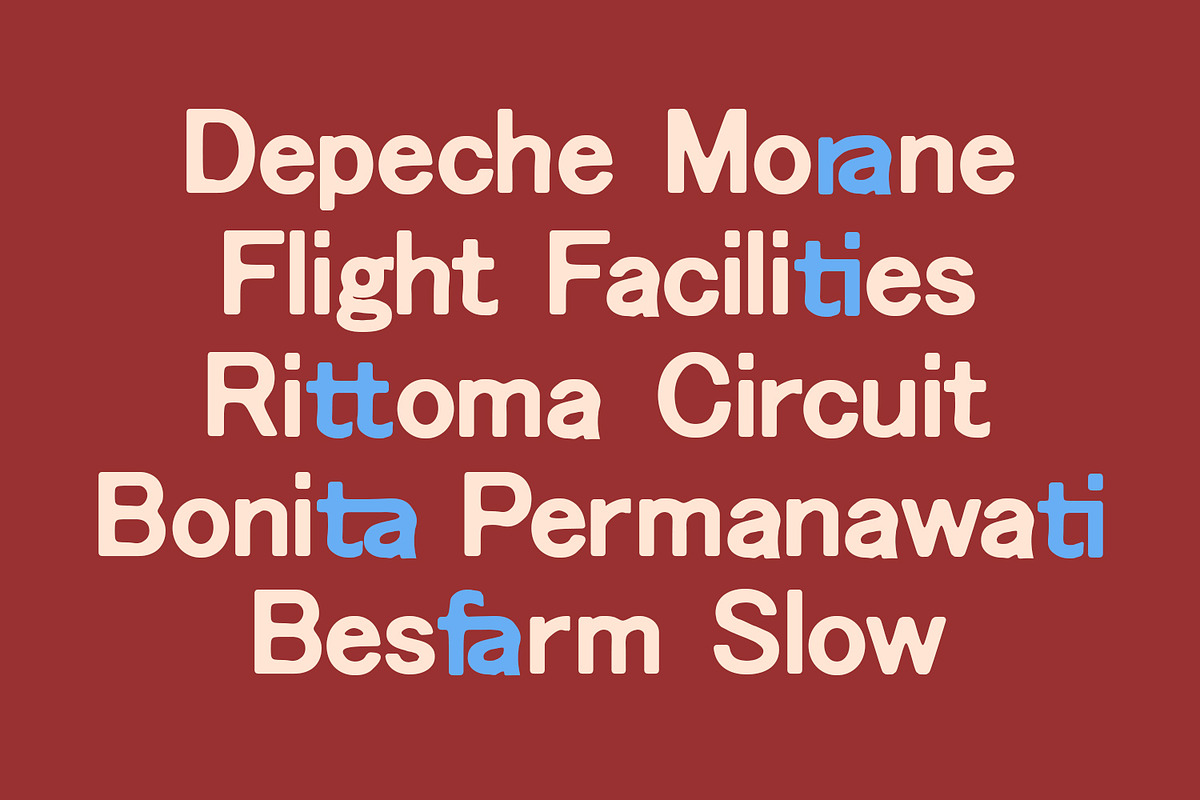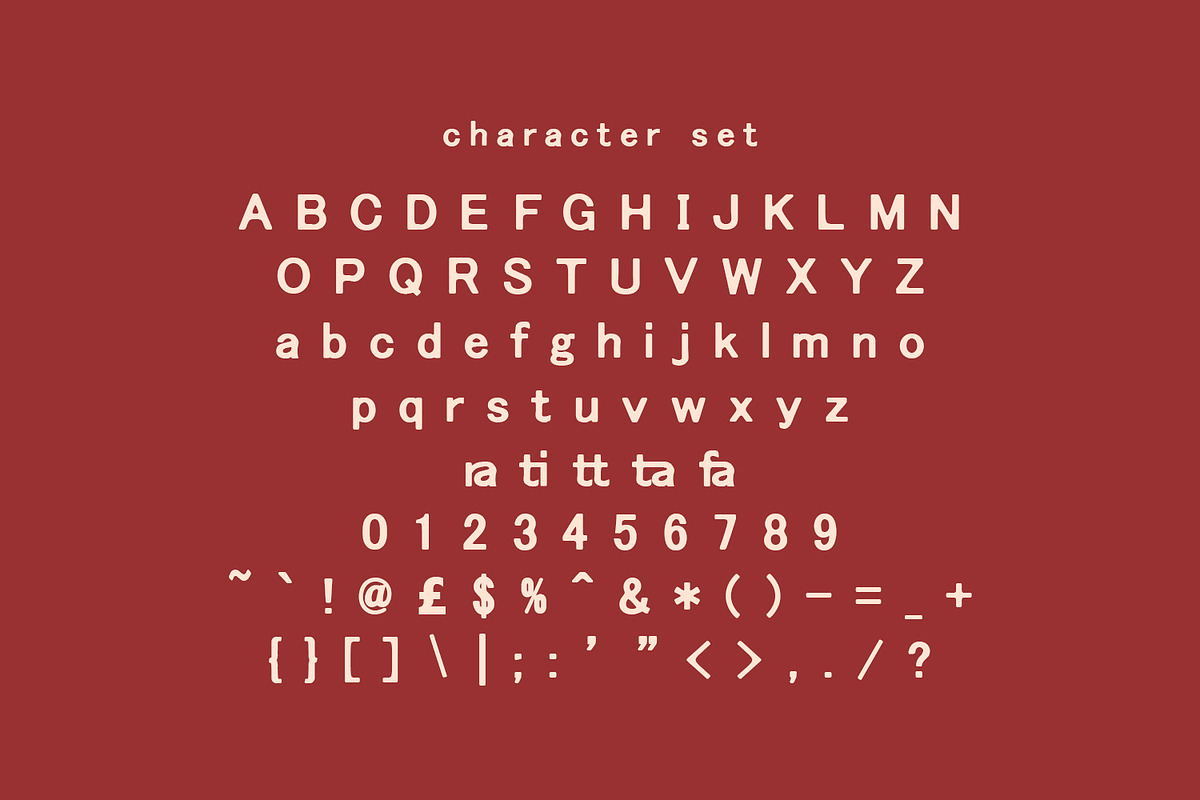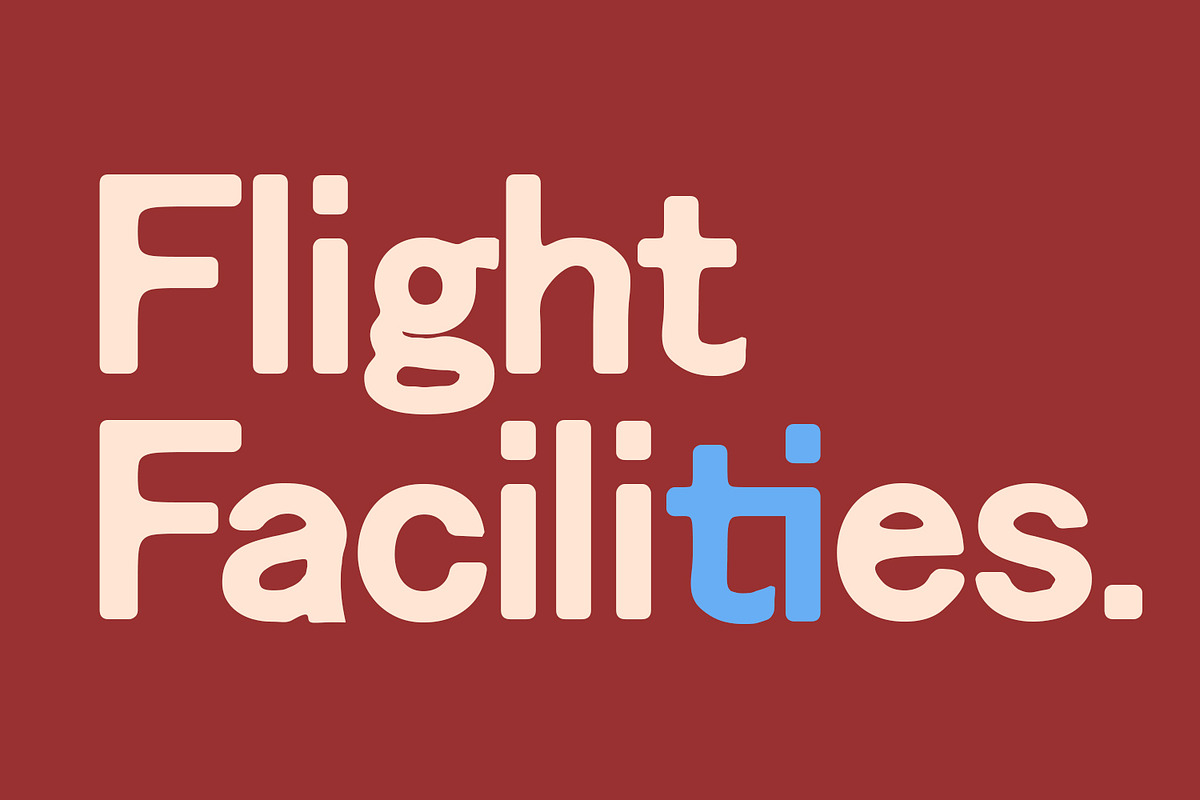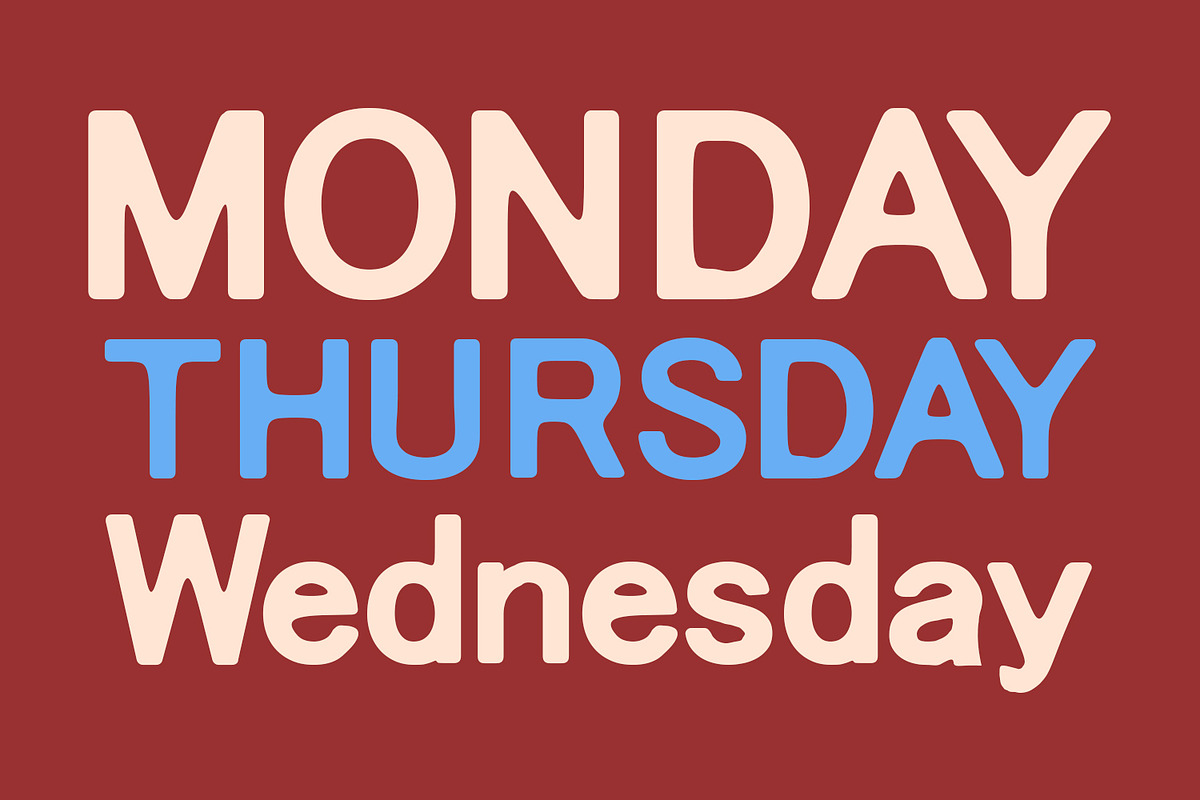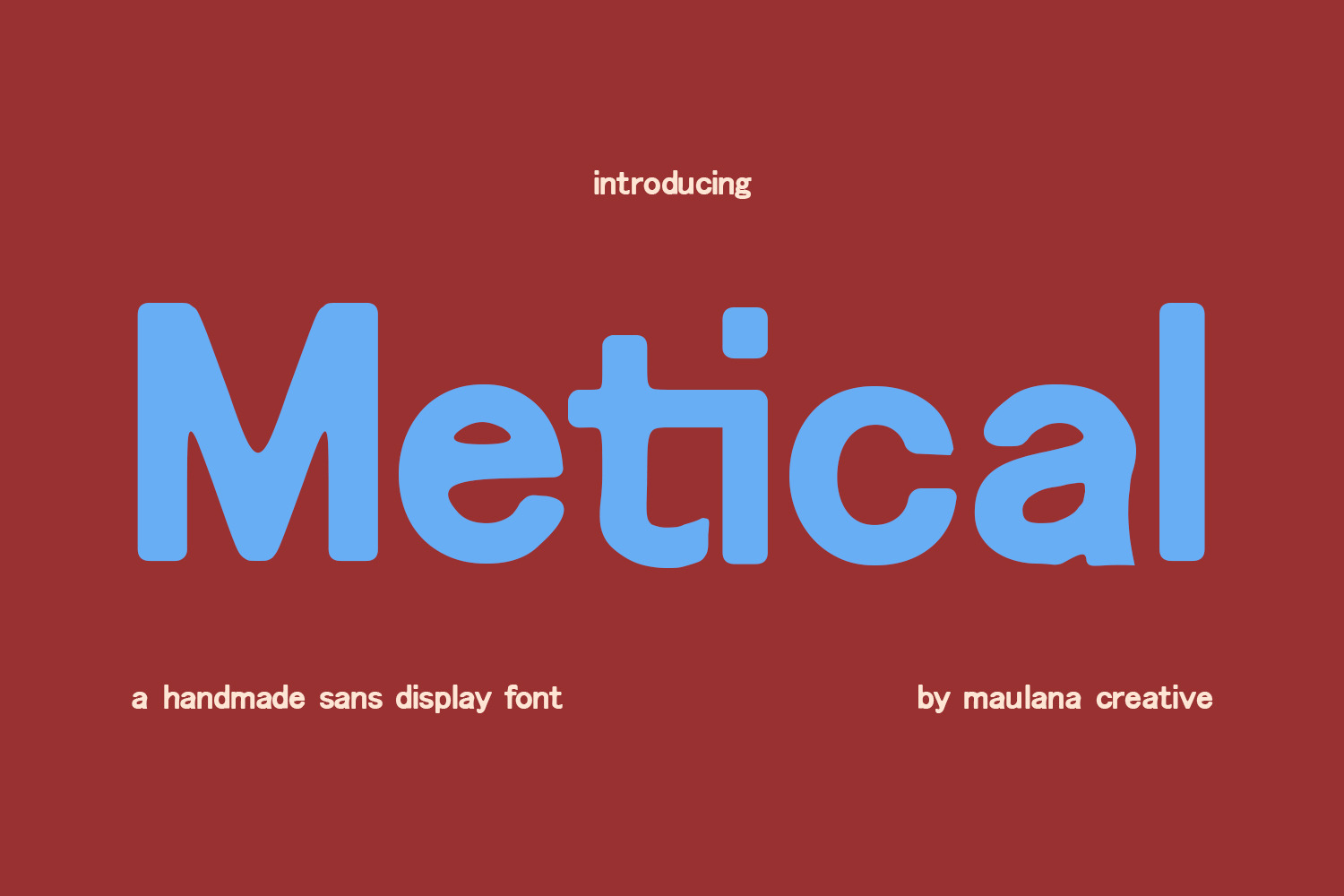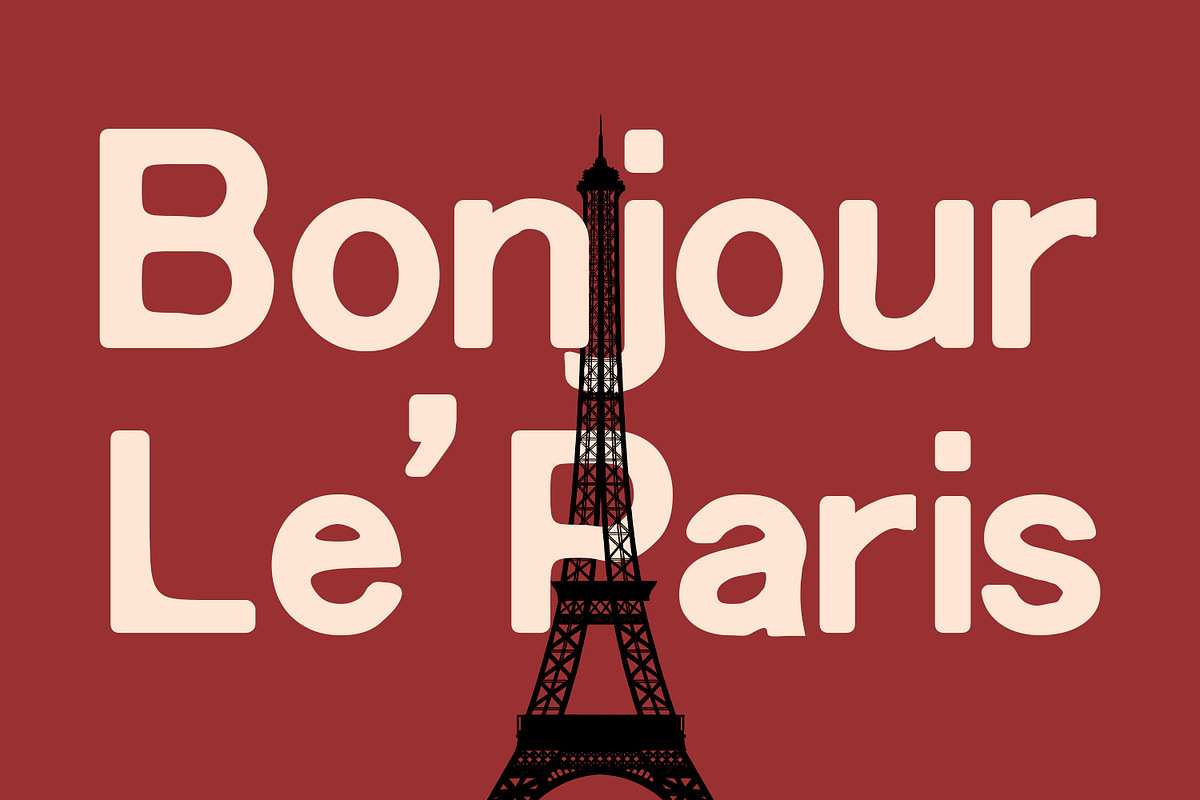
Metical Handmade Sans Display Font
Metical is a display sans font. With a handmade characters, fun character with a ligatures. To give you an extra creative work. Metical font support multilingual language. This font is good for logo design, Social media, Movie Titles, Books Titles, a short text even a long text letter and good for your secondary text font with sans or serif. Make a stunning work with Metical font.